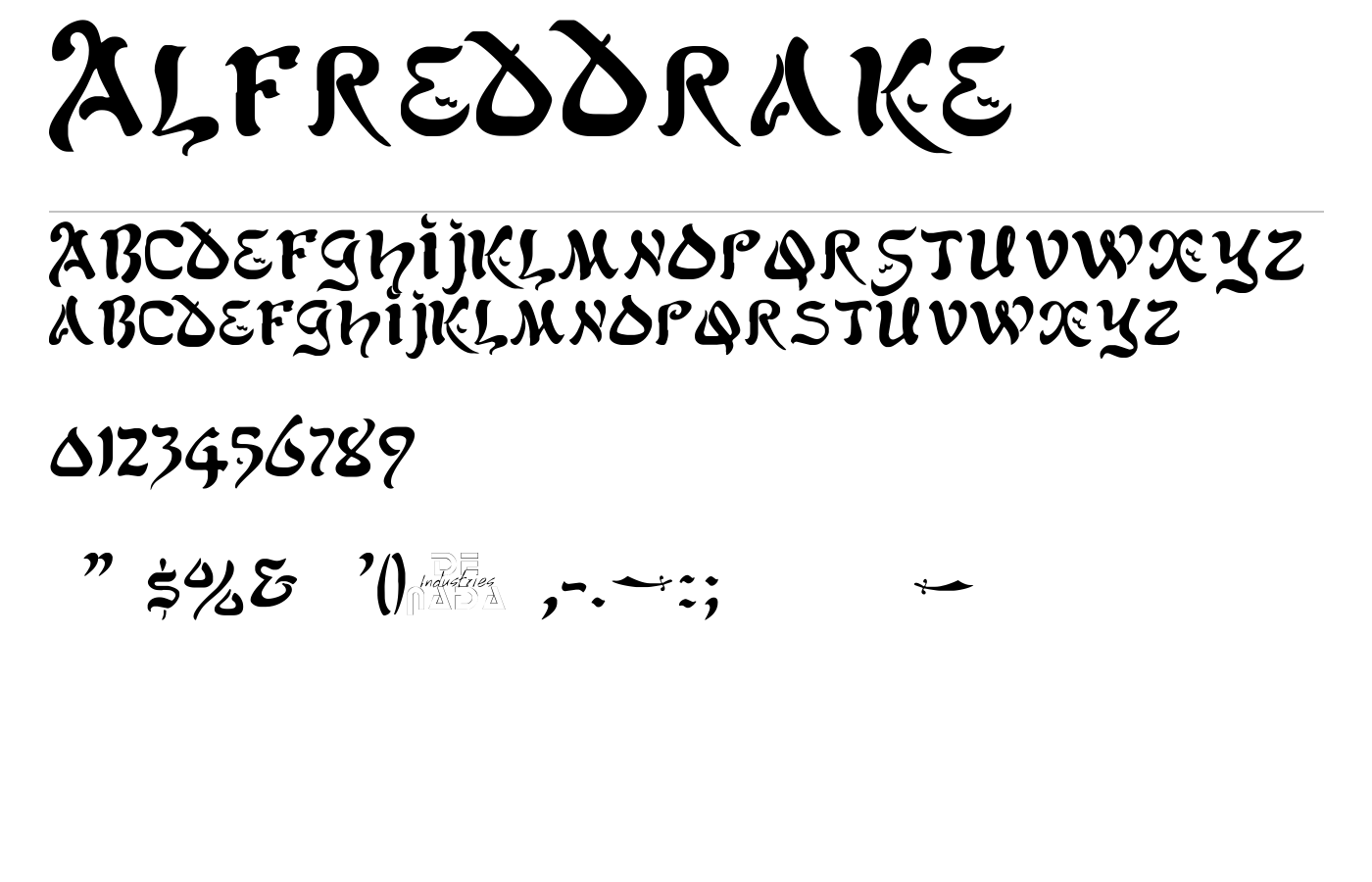
AlfredDrake is a highly decorative serif font with a dramatic, gothic flair, characterized by its bold weight and intricate, almost calligraphic strokes. Its unique letterforms, with sharp angles and curving embellishments, create a mysterious and vintage atmosphere, making it ideal for branding, posters, or designs needing a striking, theatrical touch. This font stands out best in headlines or display settings where its ornate personality can be fully appreciated.
AlfredDrake Font
About AlfredDrake Font